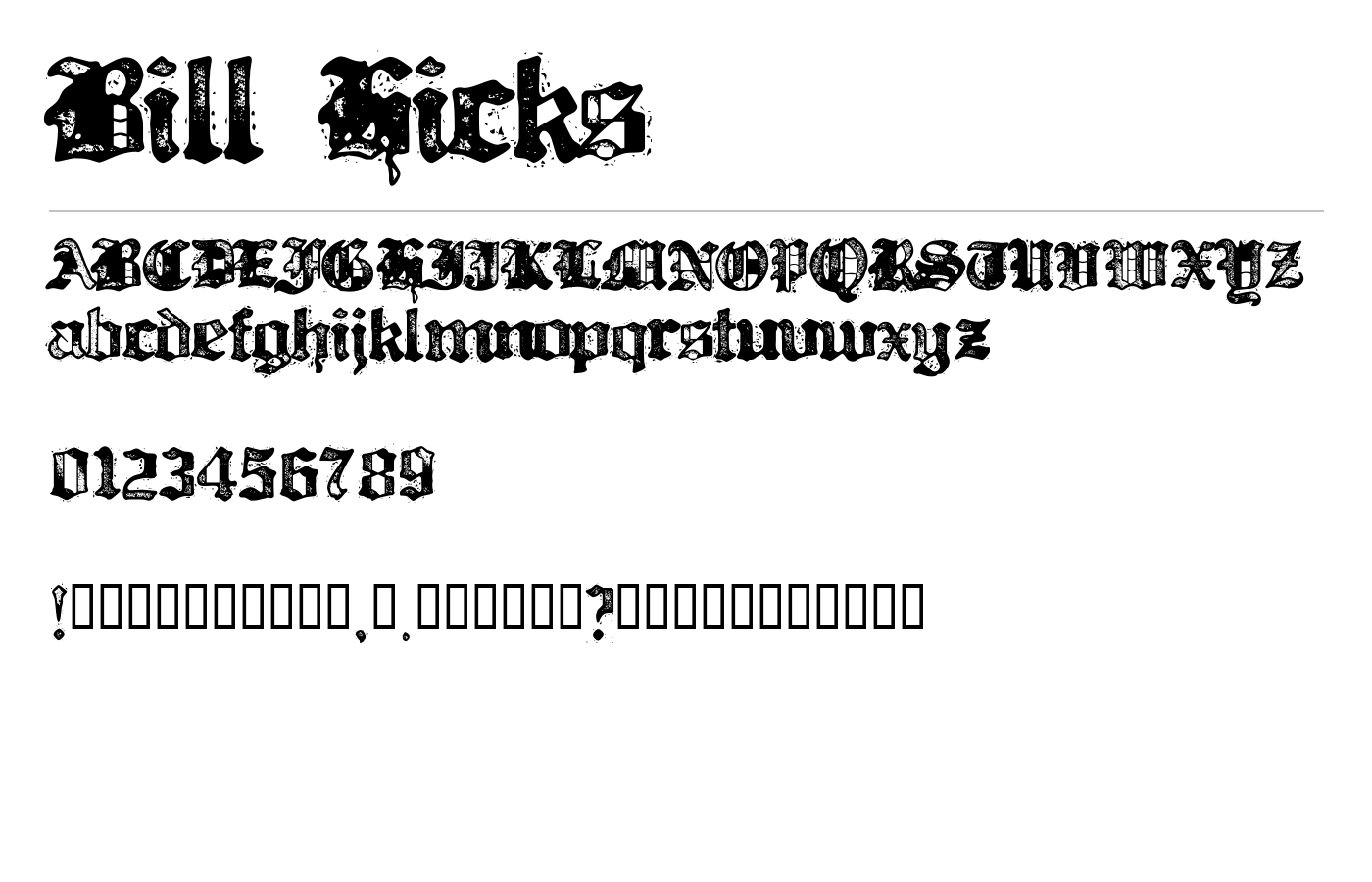
Bill Hicks Font is a bold, blackletter-style serif typeface with a distressed, grunge texture that gives it a rugged, vintage feel. Its heavy weight, intricate details, and sharp, angular strokes make it ideal for edgy designs, tattoo art, and alternative branding where a strong, rebellious personality is desired. This font works best in headlines, logos, and posters where eye-catching, dramatic impact is needed.
Bill Hicks Font